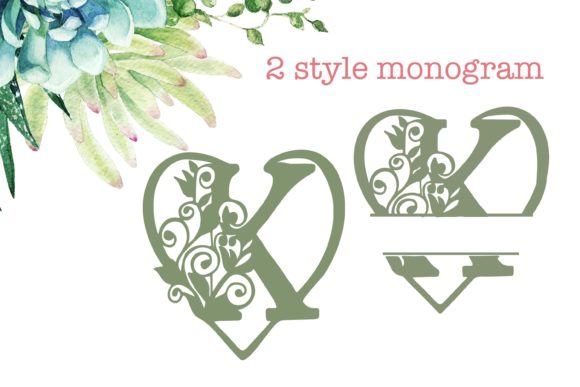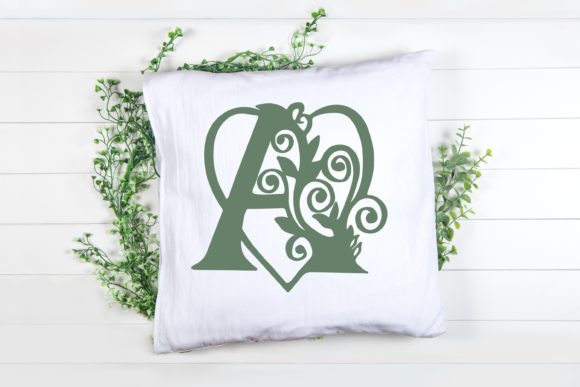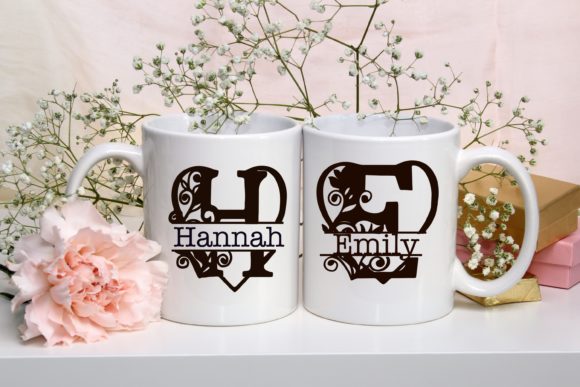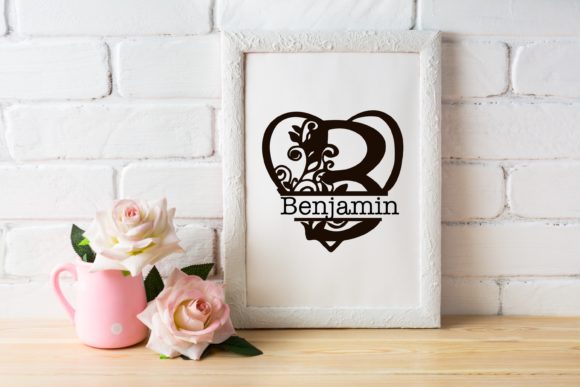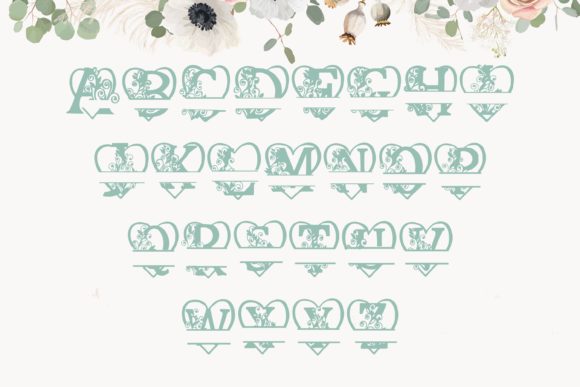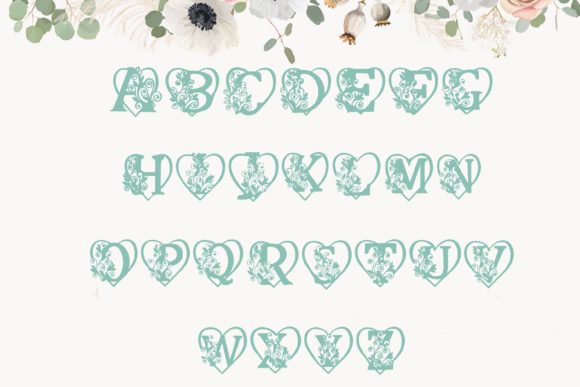
Introduction to Karina Font Font
Fonts play a crucial role in design, and the Karina Font font is a typeface that brings both character and versatility to any project. Whether you’re working on a branding project, a website, or a print design, the Karina Font font offers a unique style that can elevate your work.
Karina is a lovely decorative font.
This font is ideal for writing Valentine cards, love letters and pretty much anything that requires a romantic touch .
The Karina Font font is more than just a typeface – it’s a design tool that helps you communicate your message with style and clarity. Its unique character set and versatile design make it suitable for a wide range of applications, from elegant invitations to bold headlines.
With its carefully crafted letterforms and balanced proportions, the Karina Font font ensures readability and visual appeal across all mediums.
The Karina Font font stands out with its unique design, exceptional readability, and versatility across various design applications.